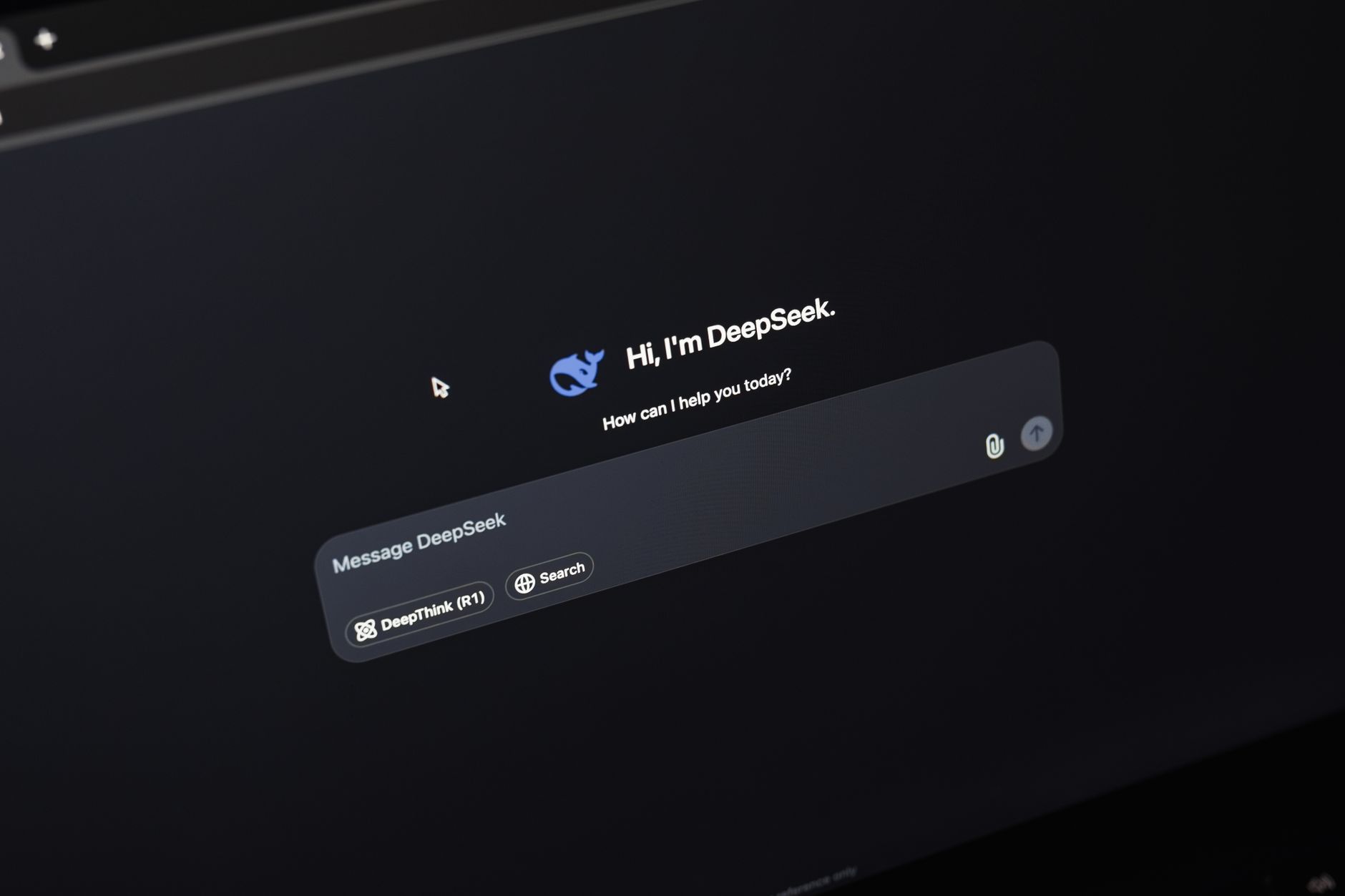
Weight Loss for Letters: Why Dark Mode Demands Variable Fonts
When dark mode first took the digital world by storm, developers and designers thought the transition would be simple: invert the color palette, swap white backgrounds for deep grays, and call it a day.
But typography had other plans.
If you’ve ever toggled your favorite app to dark mode and felt like the body text suddenly became bulky, fuzzy, or harder to read, you weren't imagining things. You were witnessing an optical phenomenon that typographers have battled for centuries. To solve it, we need to put our letters on a digital diet—and variable fonts are the perfect tool for the job.
The Science of Glowing Letters: The Irradiation Illusion
To understand why typography behaves differently on dark backgrounds, we have to look at how our eyes process light.
This phenomenon is known as the irradiation illusion. First detailed by Galileo Galilei when observing planets through telescopes, it describes how light objects on a dark background appear larger than dark objects of the exact same size on a light background.
Light text on Dark: [ A ] <-- Appears to bleed outwards
Dark text on Light: [ A ] <-- Retains crisp, defined edges
When white light hits your eye’s retina, the photoreceptors can become overstimulated, causing the light to "bleed" or spill over into neighboring dark areas. On a screen, this means white text on a black background visually expands. The counters (the enclosed spaces inside letters like 'o', 'e', and 'a') shrink, and the stems of the letters look heavier.
The result? Your clean, highly legible Regular weight font suddenly looks like a muddy Medium weight.
Why Static Fonts Can’t Fix This
In the early days of web design, fixing this was incredibly difficult. If a designer wanted to make dark-mode text thinner, they had two options, both of which were compromises:
- Step down to a lighter font weight: If the regular weight (400) was too thick, they could switch to light (300). However, this jump is often too drastic, making the text look whisper-thin, fragile, and difficult to read.
- Load extra font files: To get custom weights, developers had to load multiple static files (e.g.,
Inter-Regular.woff2,Inter-Light.woff2, etc.). Each extra font file added performance overhead, slowing down page load times.
The Solution: Variable Fonts and the Weight Axis
Variable fonts completely change this equation. Instead of loading separate files for every weight, a variable font packages an entire spectrum of styles into a single, highly efficient file.
Using the standard weight axis (wght), you are no longer restricted to rigid intervals of 100 (like 300, 400, or 500). You can render text at any integer between the font's minimum and maximum limits—such as 365 or 412.
This allows us to perform micro-typography adjustments dynamically, counteracting the irradiation illusion with surgical precision.
Implementing "Weight Loss" via CSS
Implementing this in your stylesheets is remarkably straightforward. By leveraging CSS custom properties (variables) combined with the prefers-color-scheme media query, you can dynamically shave off just enough weight to maintain visual consistency.
}
/* Adjust variables for dark mode */
@media (prefers-color-scheme: dark) {
:root {
/* Slightly reduce weights to offset the irradiation illusion */
--font-weight-body: 360;
--font-weight-bold: 660;
--bg-color: #121212;
--text-color: #f5f5f5;
}
/* Apply variables to your elements */
body {
font-family: 'Inter Variable', sans-serif;
background-color: var(--bg-color);
color: var(--text-color);
font-weight: var(--font-weight-body);
transition: background-color 0.3s, font-weight 0.3s;
}
strong, h1, h2, h3 {
font-weight: var(--font-weight-bold);
}
By reducing the body text from 400 to 360 and headers from 700 to 660, the physical glyphs on the screen become thinner. However, to the user's eye, the text will appear to have the exact same thickness as it did in light mode.
Designing for Human Eyes
Excellent typography is invisible; it should never distract the reader. When interfaces switch from light to dark, the visual rhythm and hierarchy of your layouts should remain perfectly balanced.
By combining the flexibility of variable fonts with responsive design techniques, we can ensure our designs look sharp, remain accessible, and treat our users' eyes with the care they deserve.